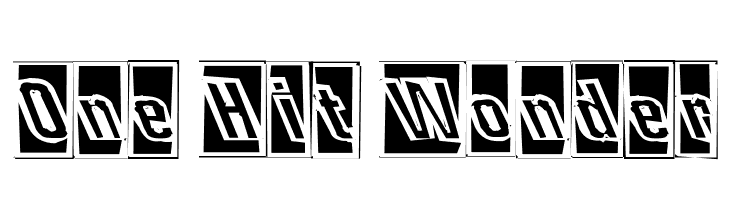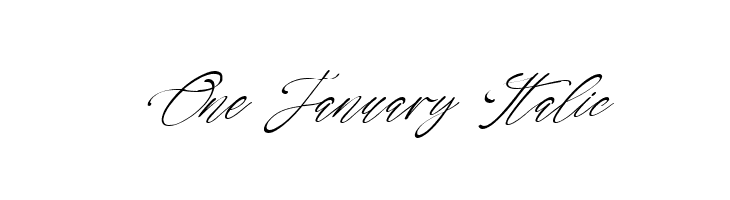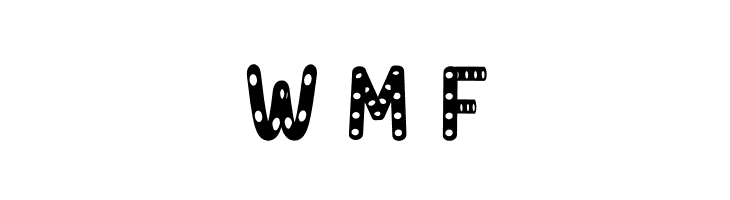
( Fonts by Kateeng Ciu )
A playful, donut-inspired font with bold, rounded characters and circular cutouts.
( Fonts by Edy Wiyono )
A playful, bold font with rounded, bubble-like characters.
An elegant script font with intricate swashes and high contrast strokes.
( Fonts by Matthew Welch - www.squaregear.net/fonts/ )
A classic serif font with bold, elegant curves and pronounced serifs.
A graceful script font with flowing, interconnected letters and elegant flourishes.
An elegant, italic script font with flowing, cursive characters.
( Fonts by www.lifewithouttaffy.com )
A playful, hand-drawn font with a bold, distressed appearance.
( Vlad Mocanu )
A bold, geometric font with rounded edges and a modern, futuristic style.